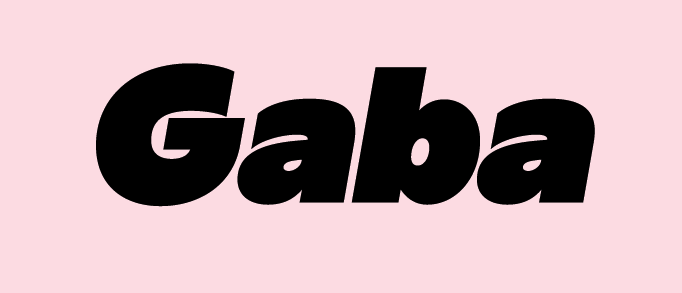
Yang Lu
Taiwan-based designer of the high-contrast typeface family Rae Low (2019, with Raimei Lu) and the 25-style low contrast large x-height sans family Gaba (2019: the smiling g in Gaba Ultra is especially pleasing).